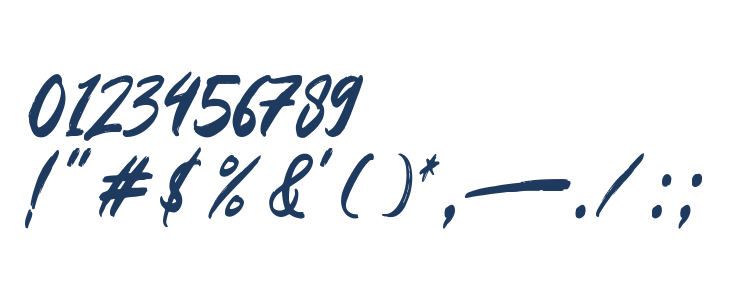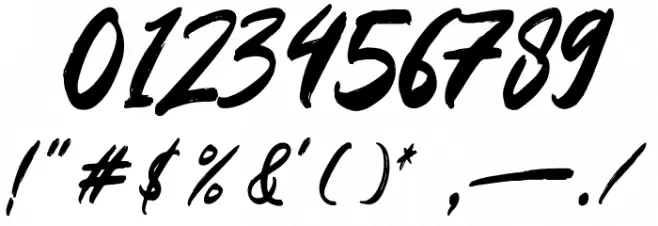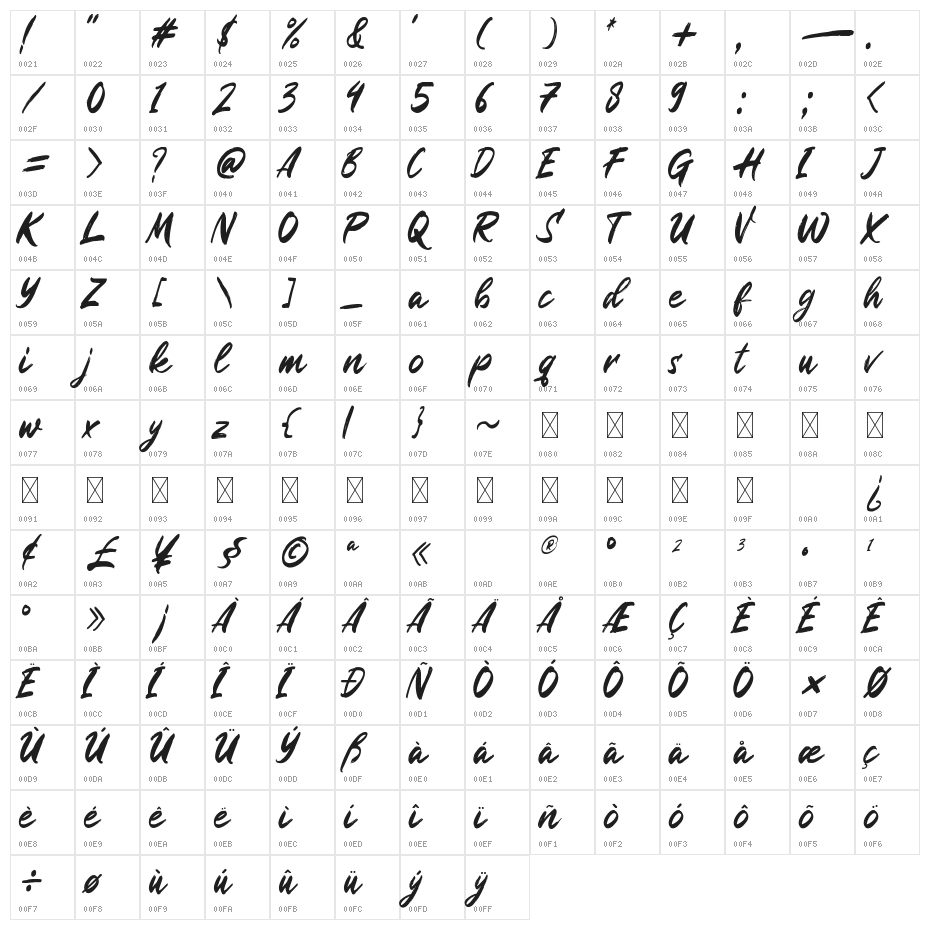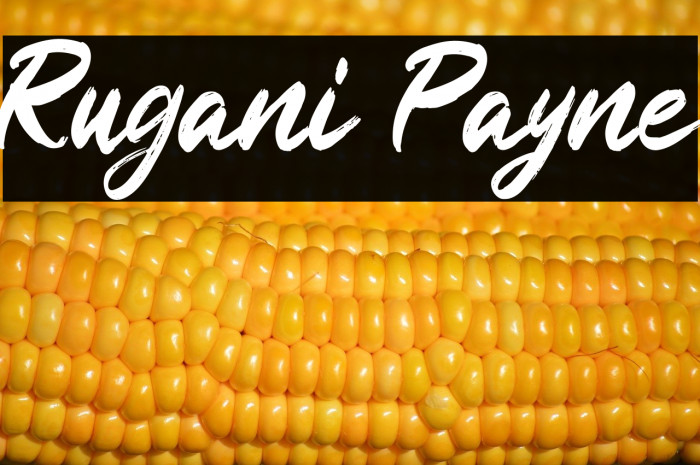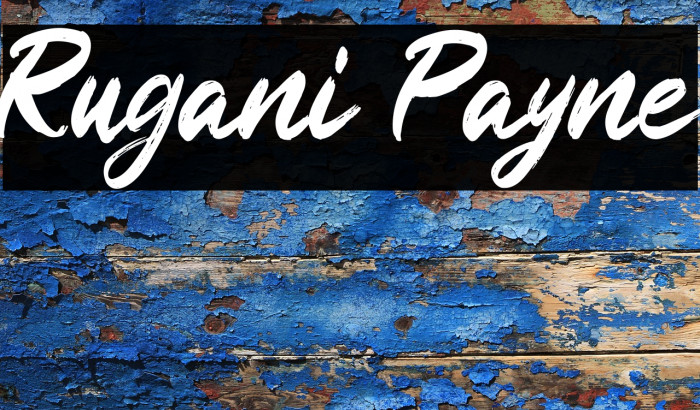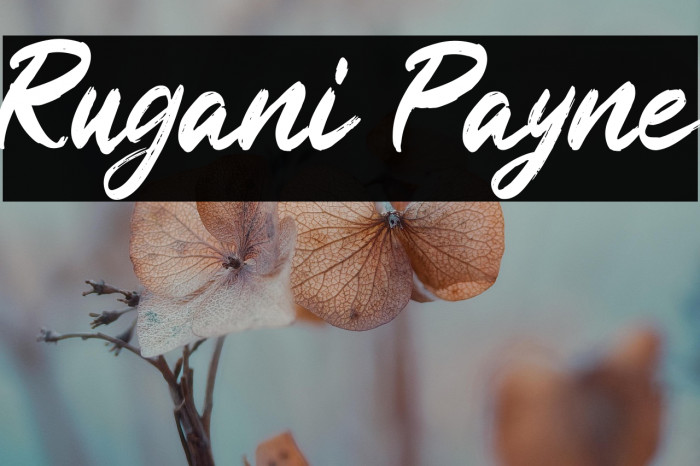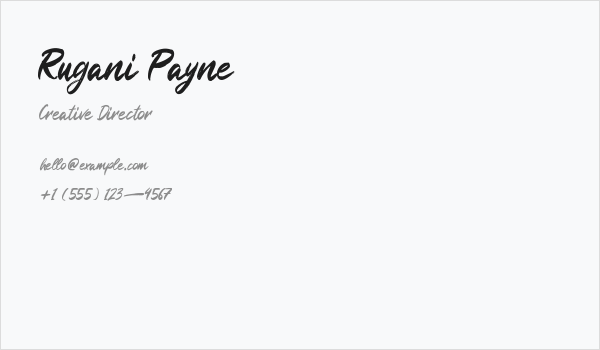
Rugani Payne Font
Rugani Payne Description
This font exudes a bold and energetic style, characterized by its brush-like strokes and dynamic flow. The uppercase and lowercase letters maintain a consistent rhythm, with a slight slant that adds to its lively appearance. The numbers and special characters follow the same expressive design, making the font suitable for creative and artistic projects. Its hand-drawn quality gives it a personal touch, ideal for capturing attention and conveying a sense of movement and spontaneity.
Proposed ProjectsIdeal for posters, branding, artistic projects, and any design requiring a bold, expressive touch.